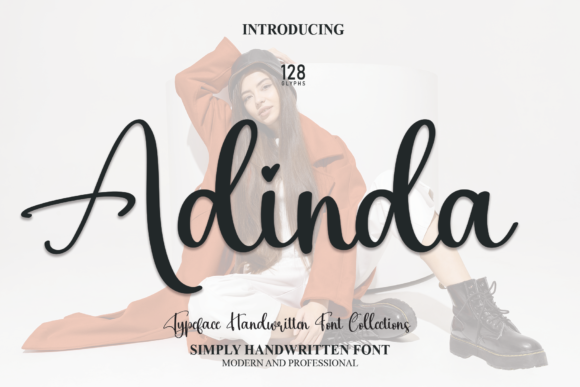
Introducing Adinda Font: A Timeless Handwritten Script for Creative Projects
Are you a designer, craftsperson, or creative enthusiast looking for a font that embodies simplicity, elegance, and versatility? Look no further than Adinda Font, a classic and straightforward handwritten script that can elevate your visual projects to new heights. In this article, we’ll explore the features, benefits, and uses of Adinda Font, and why it’s an excellent addition to your typography collection.
The Story Behind Adinda Font
Adinda Font is a carefully crafted handwritten script that exudes a sense of randomness and freedom. Its creator aimed to produce a font that would be both classic and simple, yet distinctive and attention-grabbing. The result is a beautiful, flowing script that works well in various design contexts, from corporate identity to personal projects.
Key Features of Adinda Font
- Classic and Simple Design: Adinda Font boasts a timeless, elegant design that works well in a variety of applications.
- Handwritten Script: The font’s handwritten nature gives it a personal, approachable feel that’s perfect for brands and designers looking to add a touch of warmth to their work.
- Random and Free Style: Adinda Font’s random and free style ensures that it’s versatile and adaptable, making it suitable for a wide range of creative projects.
- Highly Legible: Despite its handwritten nature, Adinda Font remains highly legible, even at smaller font sizes.
Uses of Adinda Font
Adinda Font is an incredibly versatile typeface that can be used in numerous design projects, including:
- Logotype and Branding: Adinda Font is perfect for creating memorable logos, wordmarks, and brand identities.
- Headlines and Titles: The font’s elegant, cursive nature makes it ideal for headlines, titles, and chapter headings.
- Corporate Identity: Adinda Font can be used to create professional, cohesive brand images for businesses and organizations.
- Apparel Industry: The font’s stylish, modern feel makes it suitable for use in fashion, textiles, and apparel design.
- Poster and Print Design: Adinda Font is well-suited for posters, flyers, brochures, and other print materials.
- Digital Media: The font can be used in digital projects such as YouTube videos, Instagram graphics, website headers, and more.
- Book and Magazine Design: Adinda Font can add a touch of elegance to book and magazine designs, making it perfect for chapter headings, titles, and quotes.
- Comics and Cartoons: The font’s playful, cursive nature makes it suitable for use in comics, cartoons, and other illustrated works.
Why Choose Adinda Font?
With so many fonts available, why should you choose Adinda Font for your creative projects? Here are a few compelling reasons:
- Uniqueness: Adinda Font offers a distinctive, one-of-a-kind look that will set your designs apart from the crowd.
- Flexibility: The font’s versatility ensures that it can be used in a wide range of applications, from print to digital media.
- Elegance: Adinda Font’s classic, elegant design makes it perfect for projects that require a touch of sophistication.
- Easy to Read: Despite its handwritten nature, Adinda Font remains highly legible, making it suitable for body text and other applications where readability is crucial.
Adinda Font is a beautiful, versatile handwritten script that can elevate your creative projects to new heights. Its classic, elegant design, combined with its random and free style, makes it perfect for a wide range of applications, from corporate identity to personal projects. Whether you’re a designer, craftsperson, or creative enthusiast, Adinda Font is an excellent addition to your typography collection.